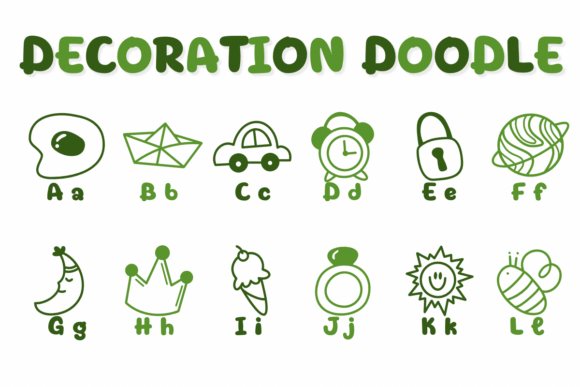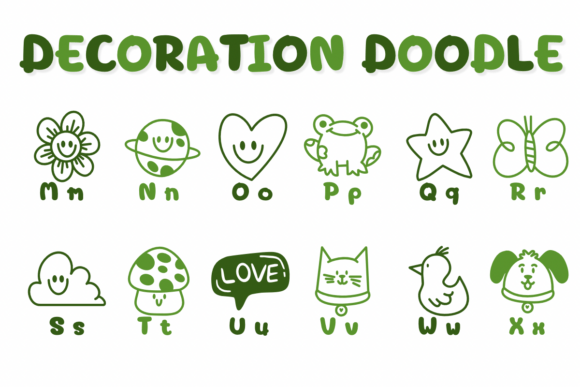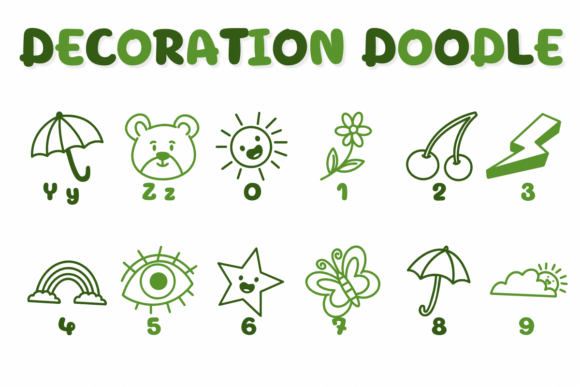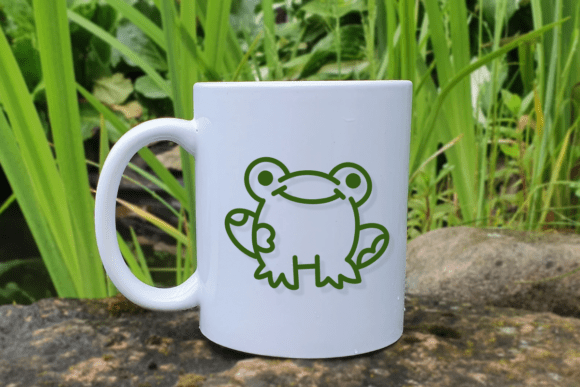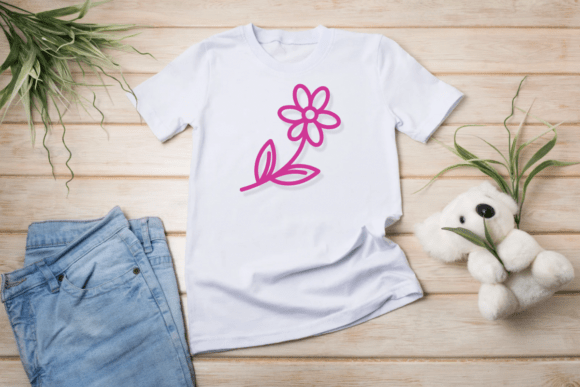
Introduction to Decoration Doodle Font
Decoration Doodle is an irresistibly cute and cheerful dingbats font featuring hand-drawn icons full of personality.
From smiling stars and playful animals to clocks, boats, and rainbows, this set brings joy to any design It’s perfect for kids’ crafts, educational materials, greeting cards, journals, or anything needing a dose of whimsy and warmth.
Key Features of Decoration Doodle Font